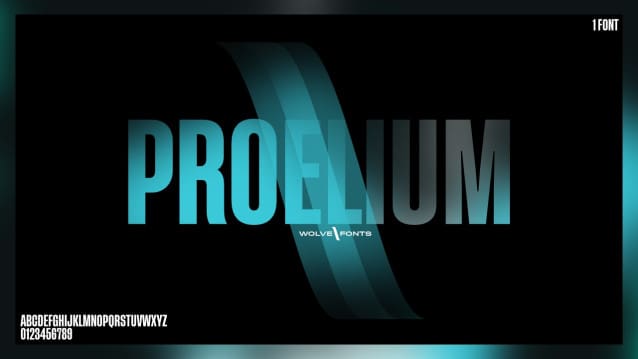
Proelium Font
Proelium Font is made for text display purposes. Proelium brings a modern and strong impression to your design. With a condensed, bold style, makes this font suitable as the main text / header on your design. Proelium doesn’t include alternative glyphs. However, maybe in the near future.